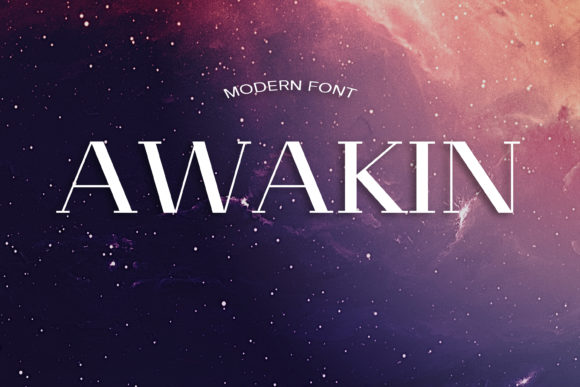
The Designer’s Delight: Awakin Font
I still remember the frustration of working on a project, hours spent perfecting every detail, only to be held back by one thing: the font. It was a client request for a bold, elegant display font that would make their brand stand out. I scoured the internet, tried countless fonts, but none seemed to fit the bill. That was until I stumbled upon Awakin Font. 💡
Awakin is an elegant and strong display font that feels timeless. It has a way of turning any design project into a true standout. In this article, I’ll share my experience with Awakin, its features, and how to make the most of it in your designs.
- ✨ Elegant and strong: Awakin’s unique blend of sophistication and boldness makes it perfect for display fonts.
- ✅ Highly versatile: It works well for various design projects, from logos and branding to posters and social media graphics.
- 🔥 Attention-grabbing: Awakin’s distinctive style ensures your design will stand out in a crowded digital landscape.
- 💻 Well-crafted: The font is designed with attention to detail, ensuring it looks great in both digital and print formats.
While Awakin is an excellent font, there are a few things to keep in mind:
- 🤔 Limited use for body text: Due to its bold and elegant nature, Awakin might not be the best choice for lengthy body text.
- Experiment with OpenType features like glyphs and stylistic alternates to add more creativity to your design.
Awakin’s design is inspired by the timeless elegance of classic typography, combined with a modern and bold approach. The font’s creator aimed to craft a font that would be both sophisticated and attention-grabbing, making it perfect for designers looking for a unique display font.
Q: What type of projects is Awakin best suited for?
A: Awakin is perfect for display fonts, logos, branding, posters, and social media graphics.
Q: Can I use Awakin for body text?
A: While Awakin is an excellent font, it’s not ideal for lengthy body text due to its bold and elegant nature.
Q: Does Awakin support OpenType features?
A: Yes, Awakin supports OpenType features like glyphs and stylistic alternates, which can be accessed in compatible design software.
Q: Is Awakin suitable for digital and print designs?
A: Yes, Awakin is designed to look great in both digital and print formats, making it a versatile font for various design projects.